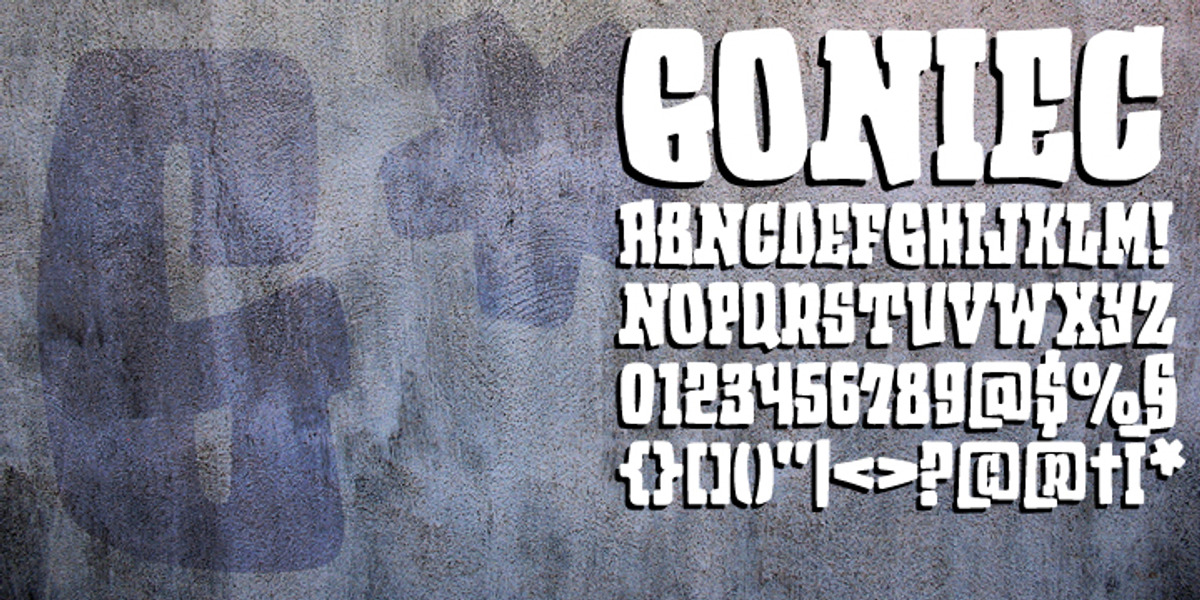
Goniec
Goniec is a bold, all-caps font designed to resemble graffiti. Its heavy weight and informal style make it suitable for eye-catching designs like posters and branding elements targeting a youthful audience.